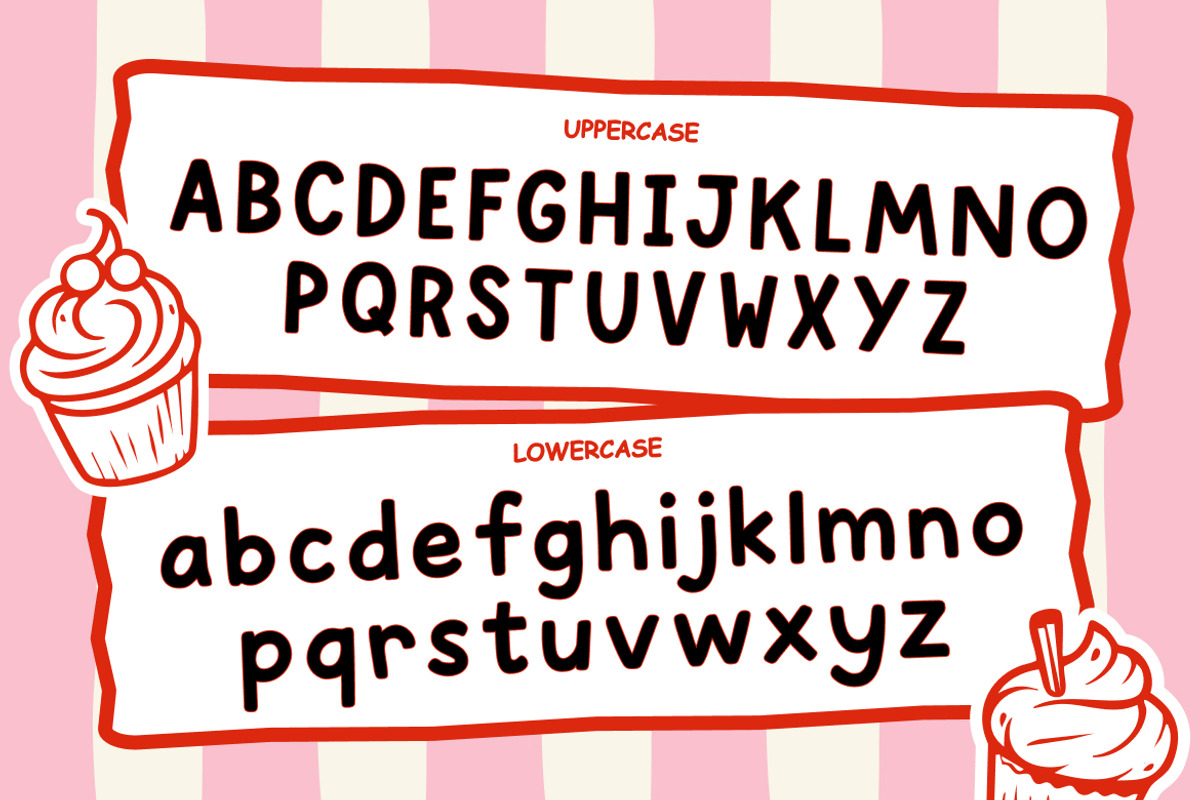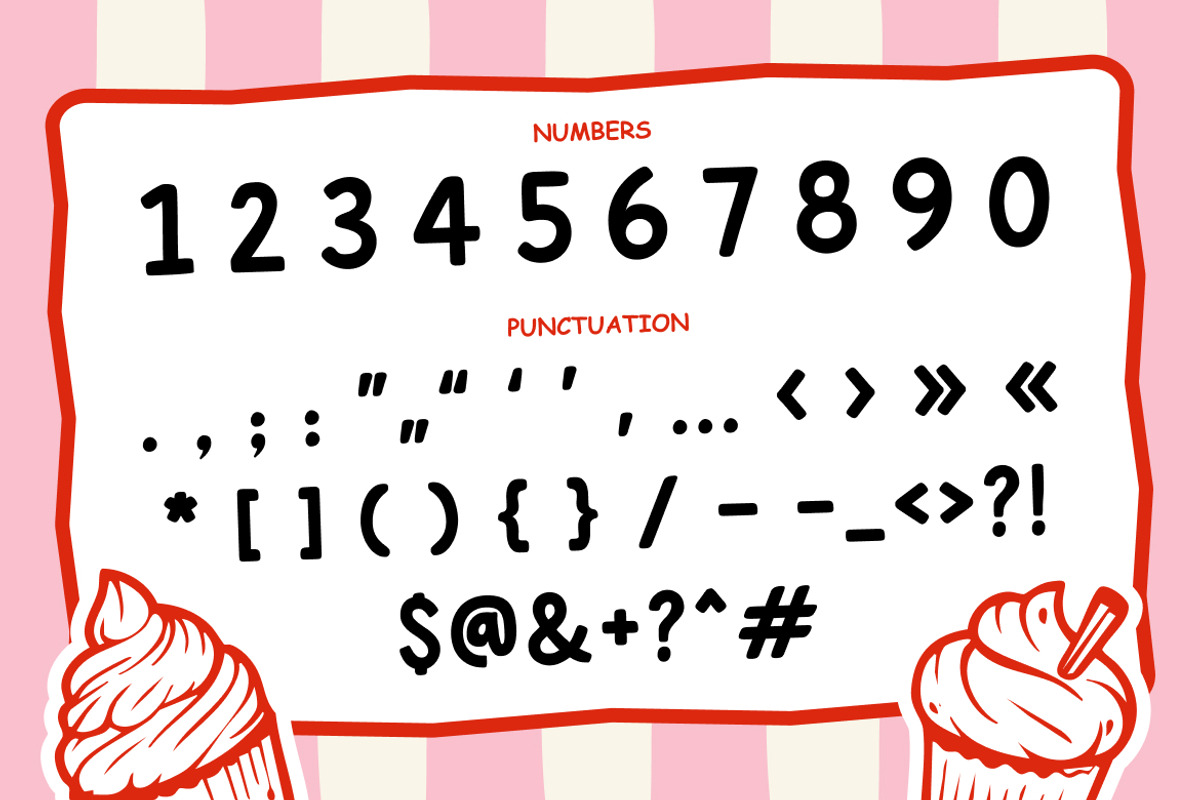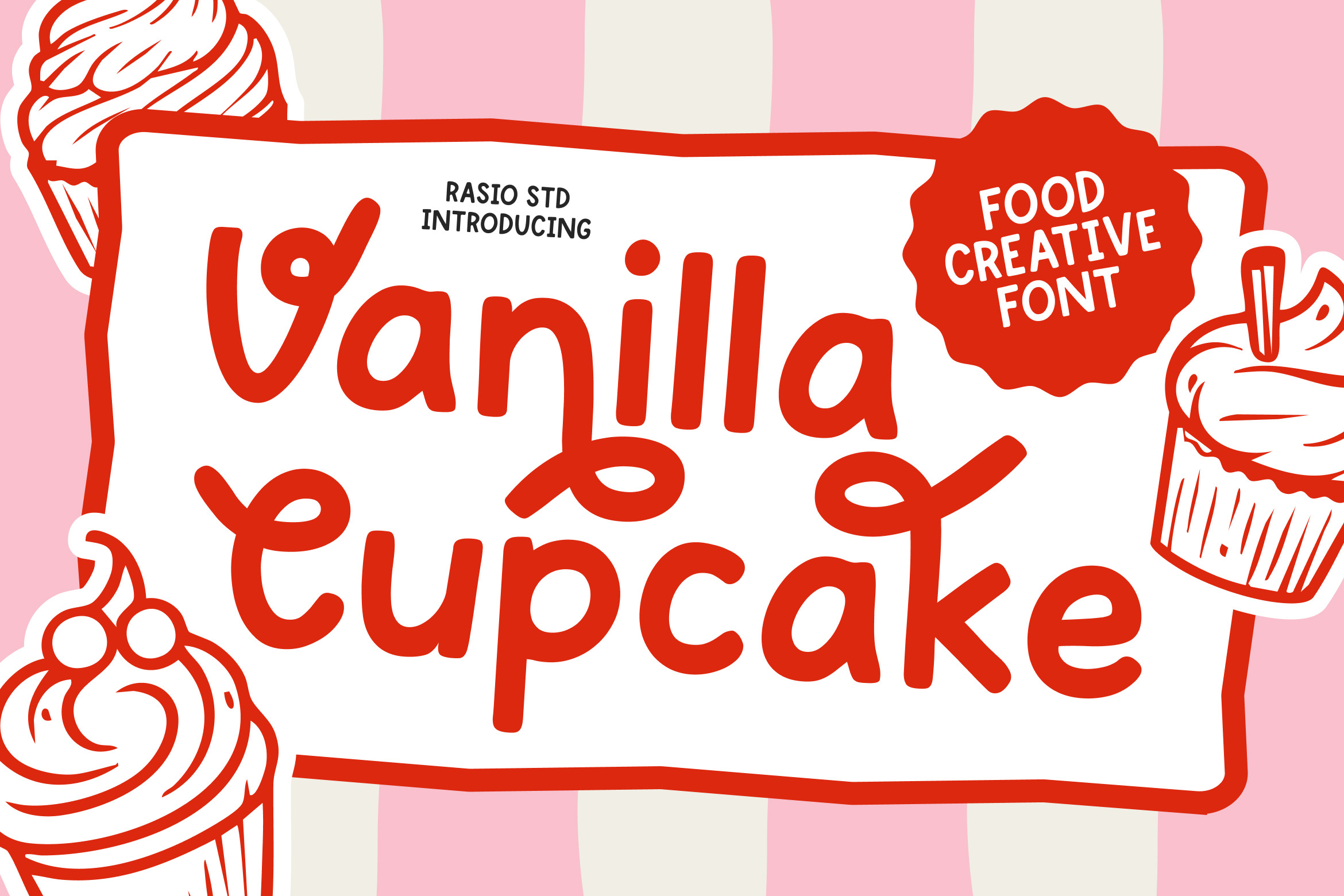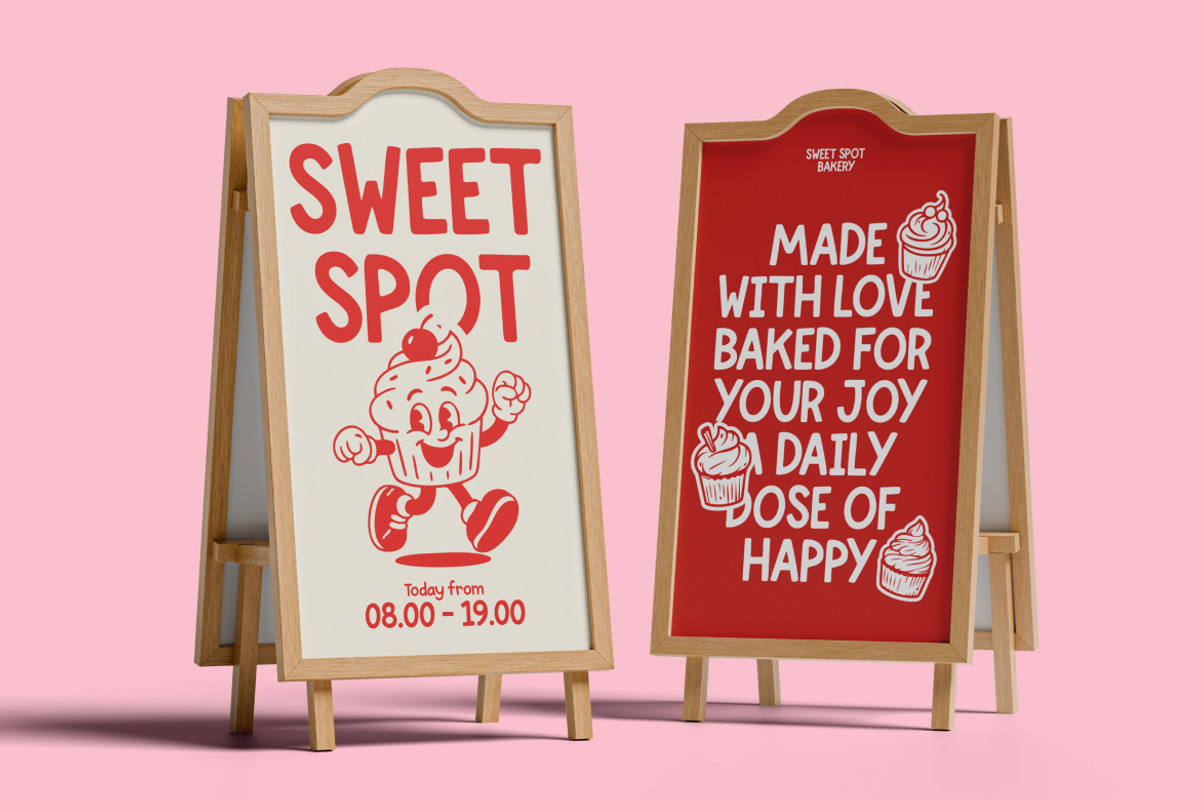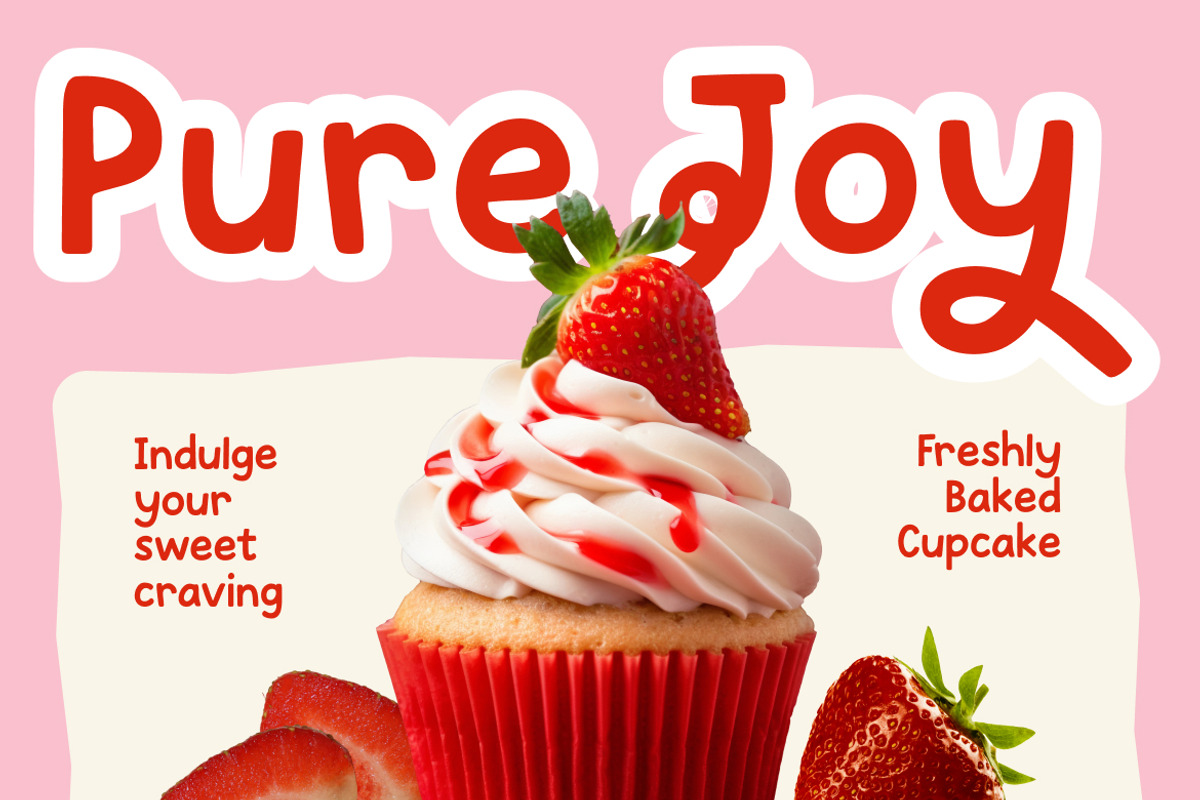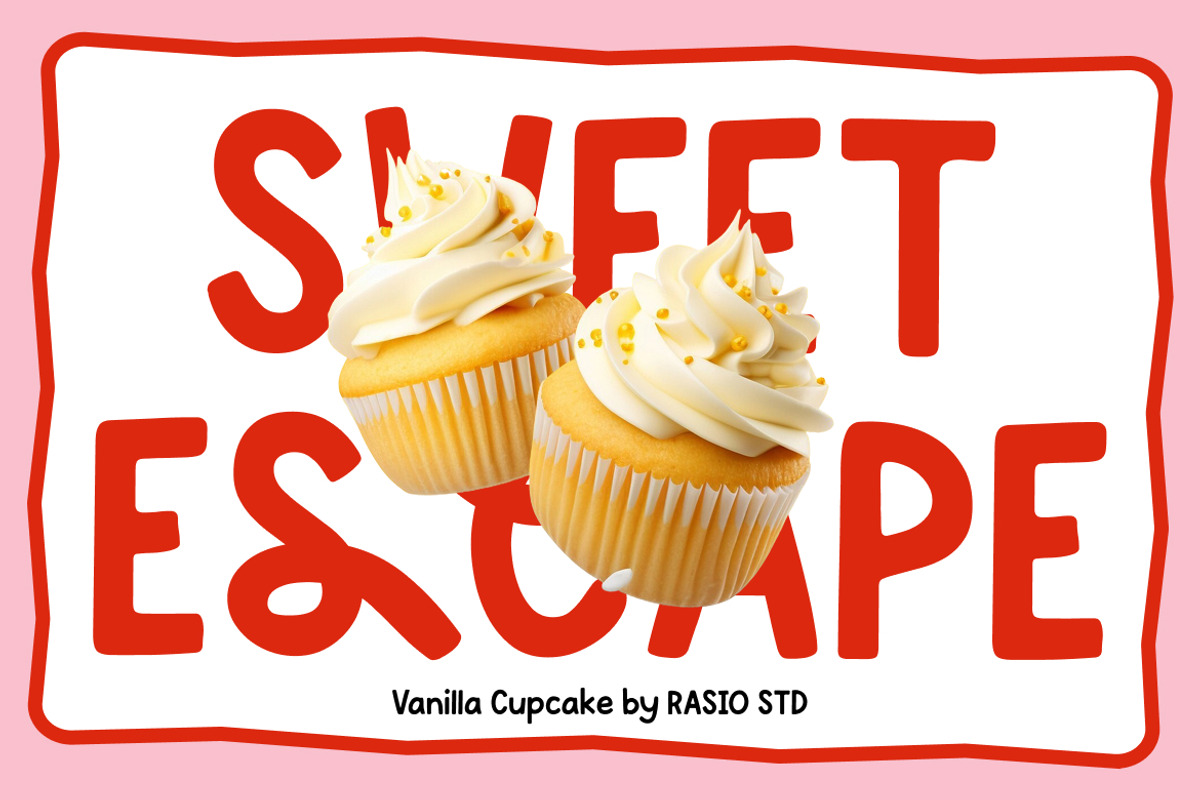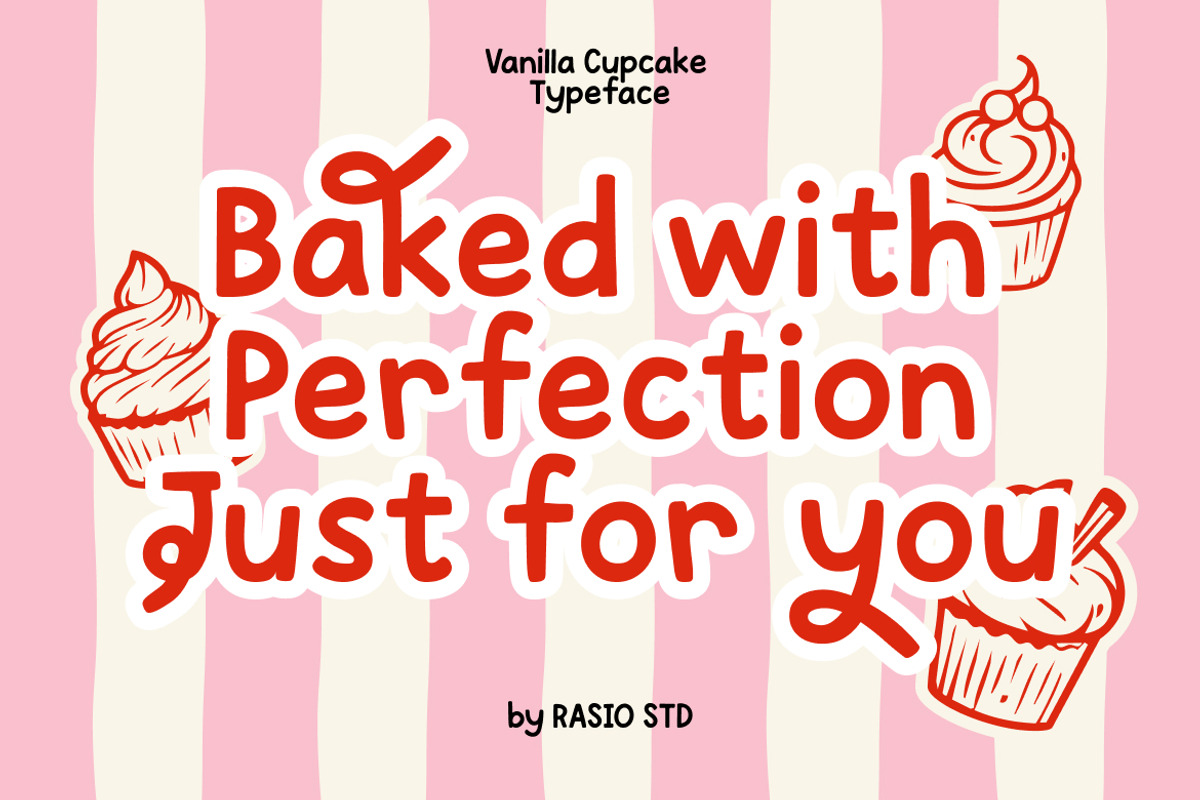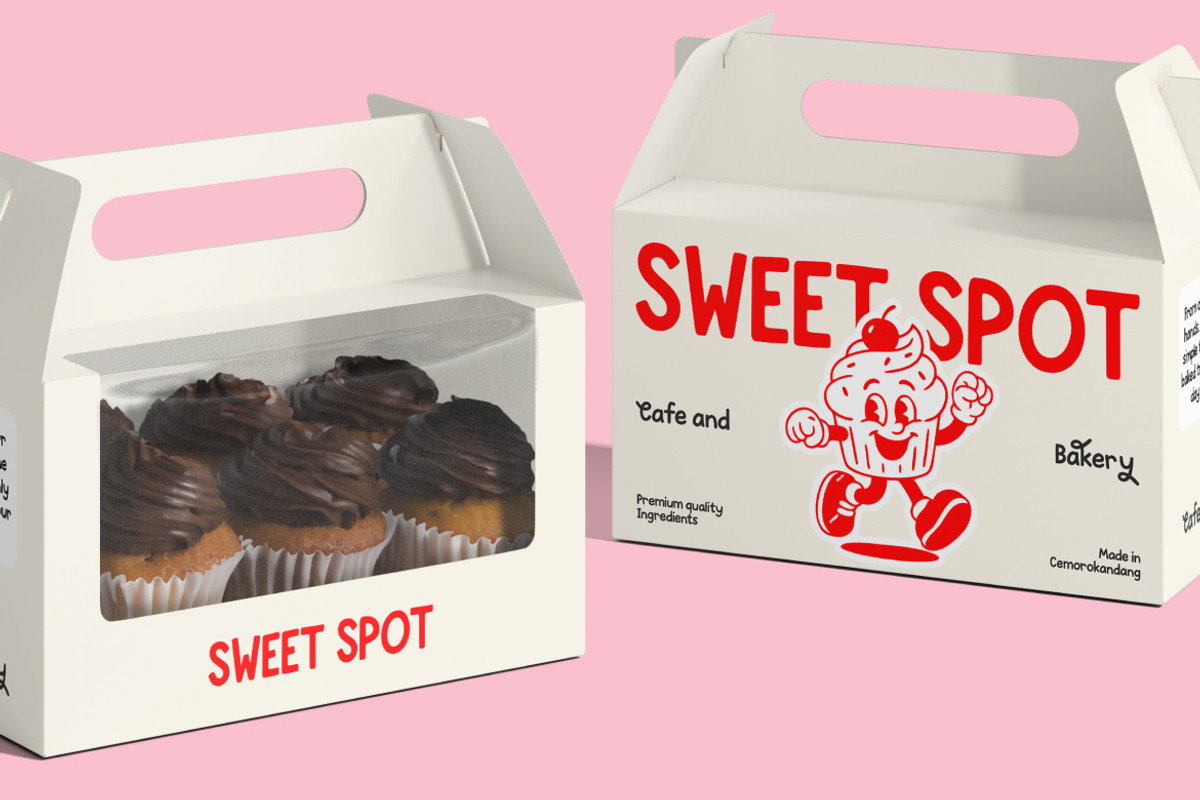
Vanilla Cupcake Food Creative Font
Vanilla Cupcake is a bold, playful display font inspired by sweet bakery branding and cheerful food packaging. The design features thick rounded letterforms, soft curves, and hand-drawn character details that create a friendly, appetizing, and eye-catching appearance. This font includes uppercase, lowercase, numbers, and punctuation, making it fully functional for both headlines and short body text.
Vanilla Cupcake is designed for food branding, bakery logos, dessert packaging, café menus, kids-themed products, snack labels, sweet shop promotions, and social media food campaigns. Its bold rounded shapes make it especially effective for headlines, product names, stickers, posters, and cheerful advertising materials that require warmth and personality.
- Bold rounded letterforms with soft, chunky proportions for a sweet appearance
- Playful hand-drawn curves that add warmth, charm, and an approachable personality
- Smooth terminals and bubble-like shapes for clear readability at large display sizes
- Thick, consistent stroke weight that creates strong visual impact
- Generous spacing and simple silhouettes for clean legibility across packaging
- Food and bakery branding with a fun, friendly, and appetizing personality
- Snack packaging, dessert labels, café menus, and restaurant promotions
- Kids products, candy brands, and playful merchandise designs
- Posters, stickers, social media content, and cheerful marketing materials
- Event graphics, party themes, and seasonal food campaigns with bold character